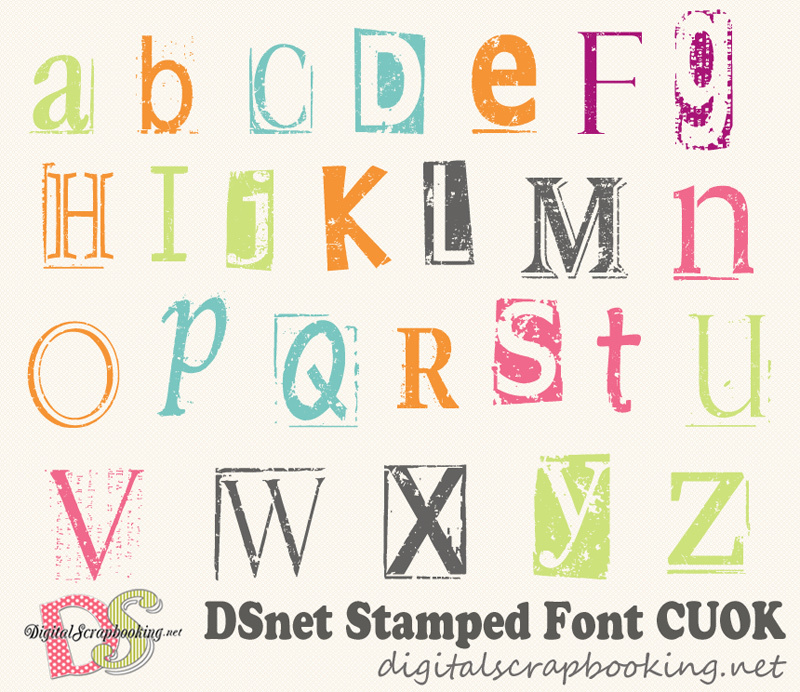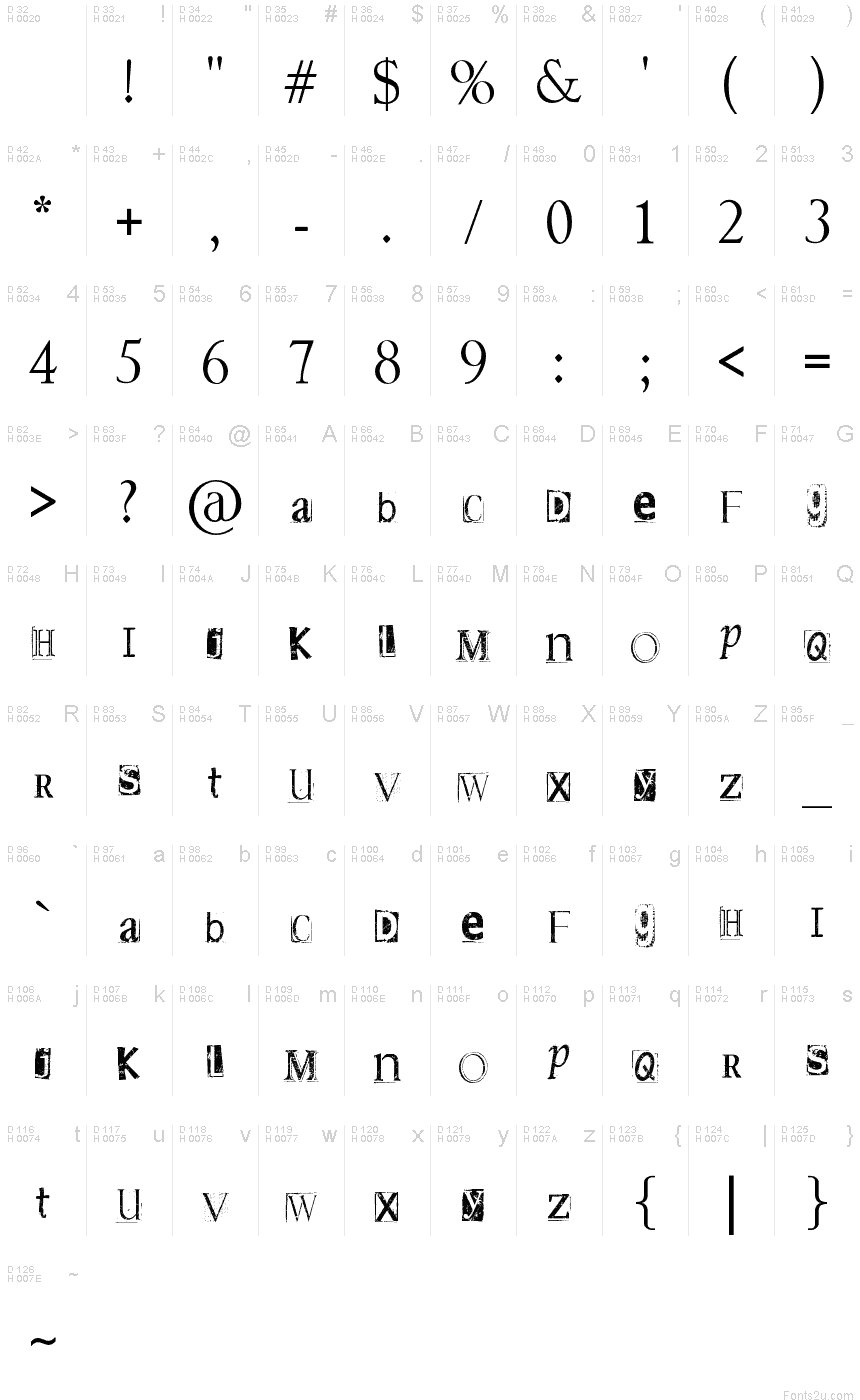
DSnet Stamped is a free eroded display font with the mismatched look of letters gathered from several unrelated old print sources. Sharp serifs, broad rounded forms, and narrow classical shapes shift abruptly across the alphabet. Scratches, broken edges, and uneven ink coverage give the design a convincingly battered physical stamp texture rather than a tidy uniform digital distress effect.
For small-run music packaging and alternative magazine covers, its changing letter styles suggest collage, bootleg print, and reused type, yet the same roughness also fits haunted attractions and period crime graphics. On posters, it can become part of the printed debris itself.